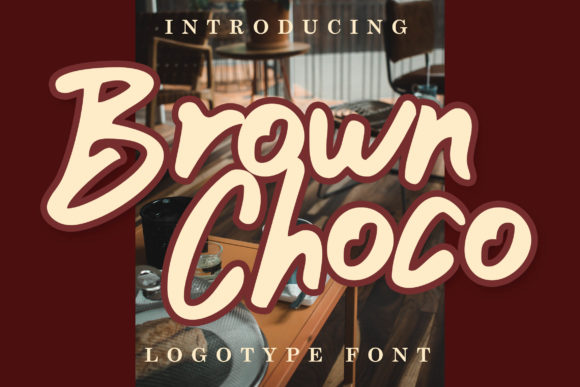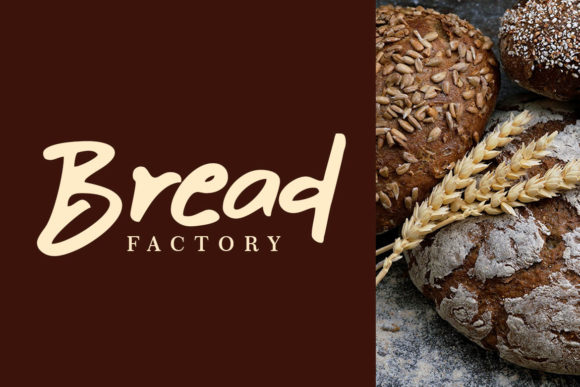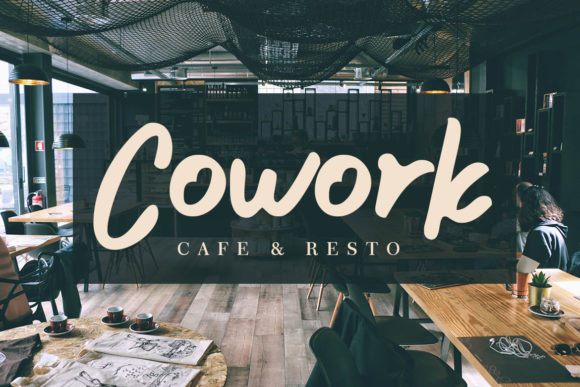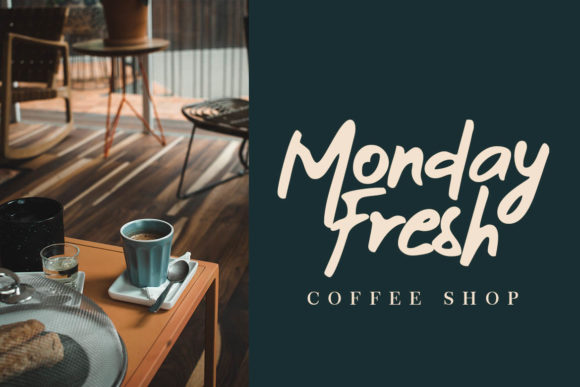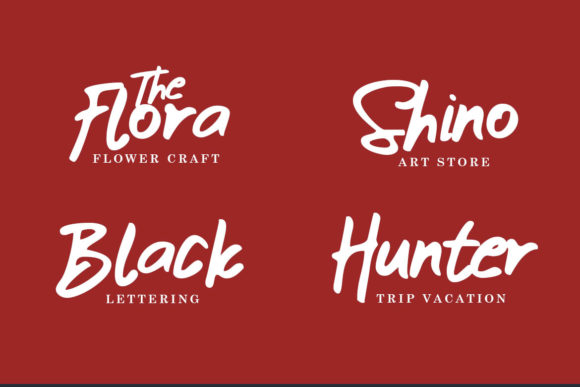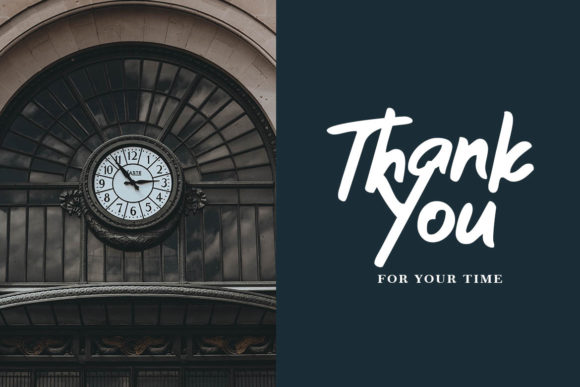
Brown Choco Font
About Brown Choco Font
The Brown Choco is an unique logotype font. This font is perfect for logos, quotes, posters, playful lettering, clothing, and every other design which needs a striking typeface.